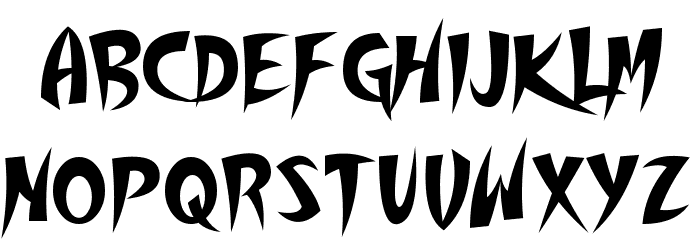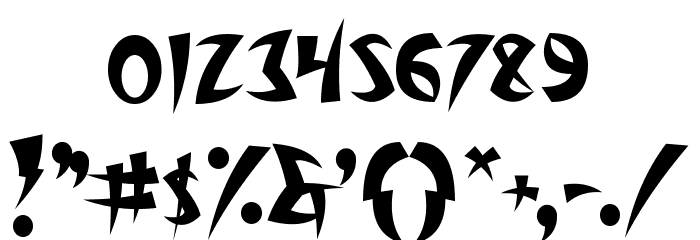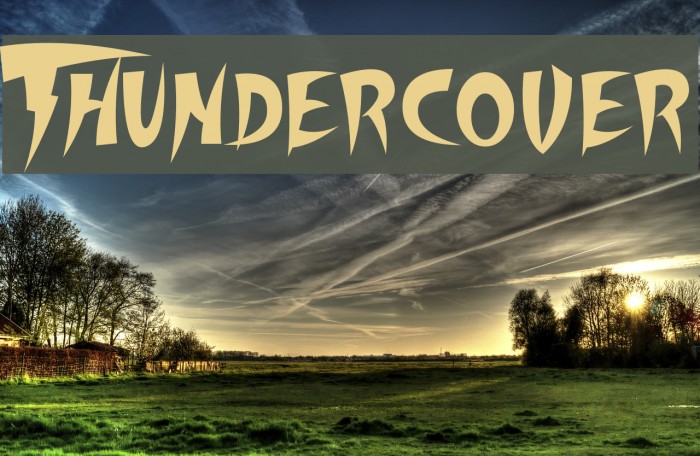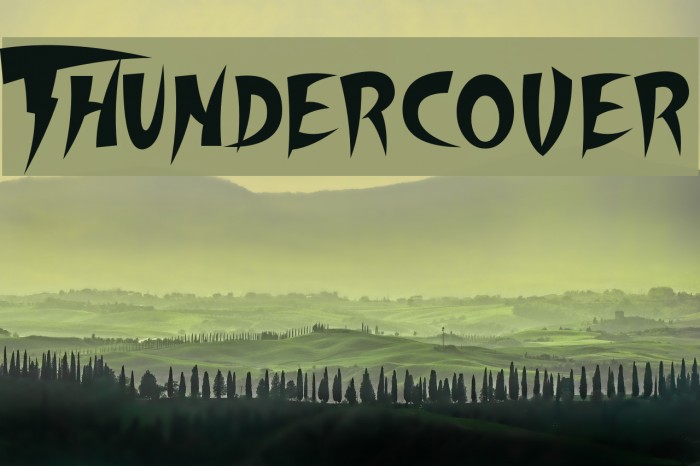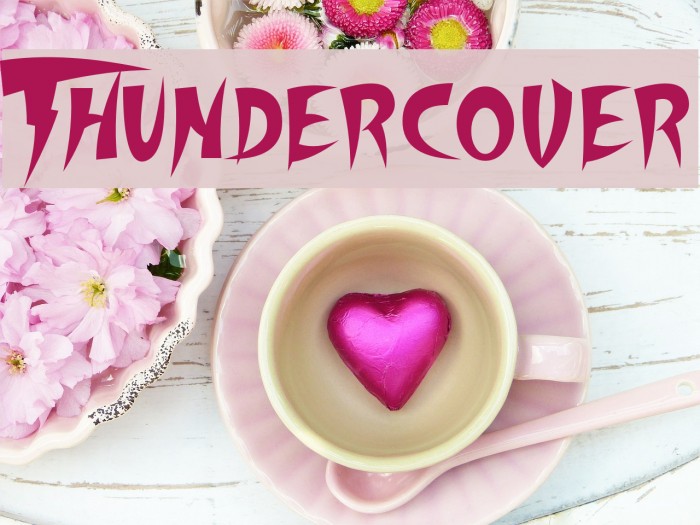
Thundercover Font
This font features a bold and dynamic design with sharp, angular edges and a striking appearance. The characters are heavily stylized, resembling lightning bolts or jagged shards, which gives them a sense of energy and movement. The uppercase and lowercase letters maintain a consistent style, with exaggerated serifs and pointed terminals. Numbers and special characters follow the same aesthetic, ensuring a cohesive look across all glyphs. The font's aggressive and edgy style makes it ideal for projects that require a strong visual impact.
A bold, angular font with a dynamic, lightning-inspired design.
- Proposed Projects: Ideal for music album covers, sports team logos, action movie posters, and edgy branding projects.
- Overall Style: Modern, Edgy
- Use Case: Logos, Posters, Headlines